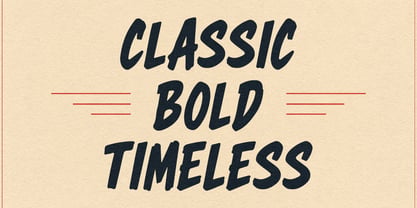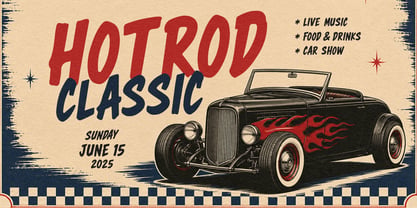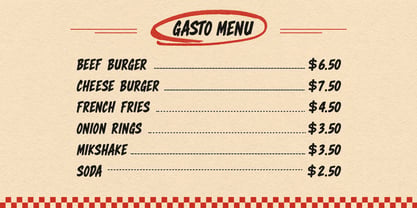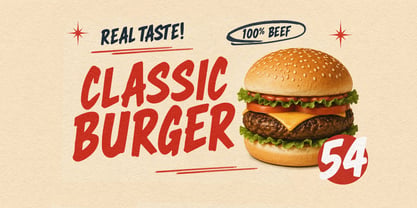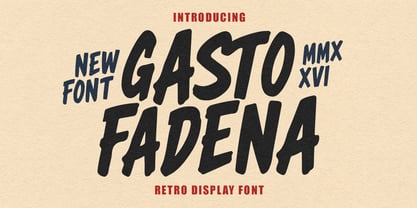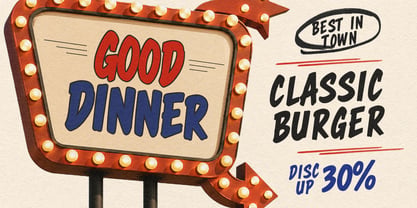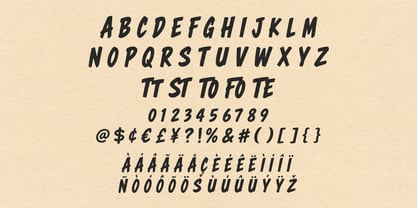
Gasto Fadena
by Maulana Creative
The Gasto Fadena Font Family was designed by Gilang Maulana and published by Maulana Creative. Gasto Fadena contains 1 styles. More about this family
Gasto Fadena is a bold vintage display font designed to capture the classic energy of mid-century typography. Featuring strong letterforms, dynamic italicized angles, and subtle textured edges, this typeface provides an authentic hand-drawn feel that instantly commands attention. It includes uppercase letters, numbers, punctuation, special symbols, and stylistic ligatures to give creative projects a distinct and timeless look.
Its energetic style makes it ideal for a wide range of visual applications, including restaurant menus, food packaging, vintage signage, automotive posters, and event branding. Whether crafted for retro diner layouts, hotrod event flyers, or bold promotional banners, this display font brings strength, readability, and a classic aesthetic to modern designs.
Designers: Gilang Maulana
Foundry: Maulana Creative